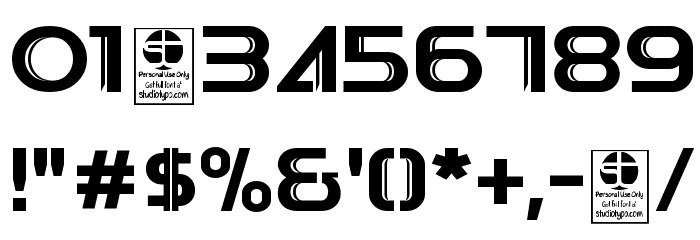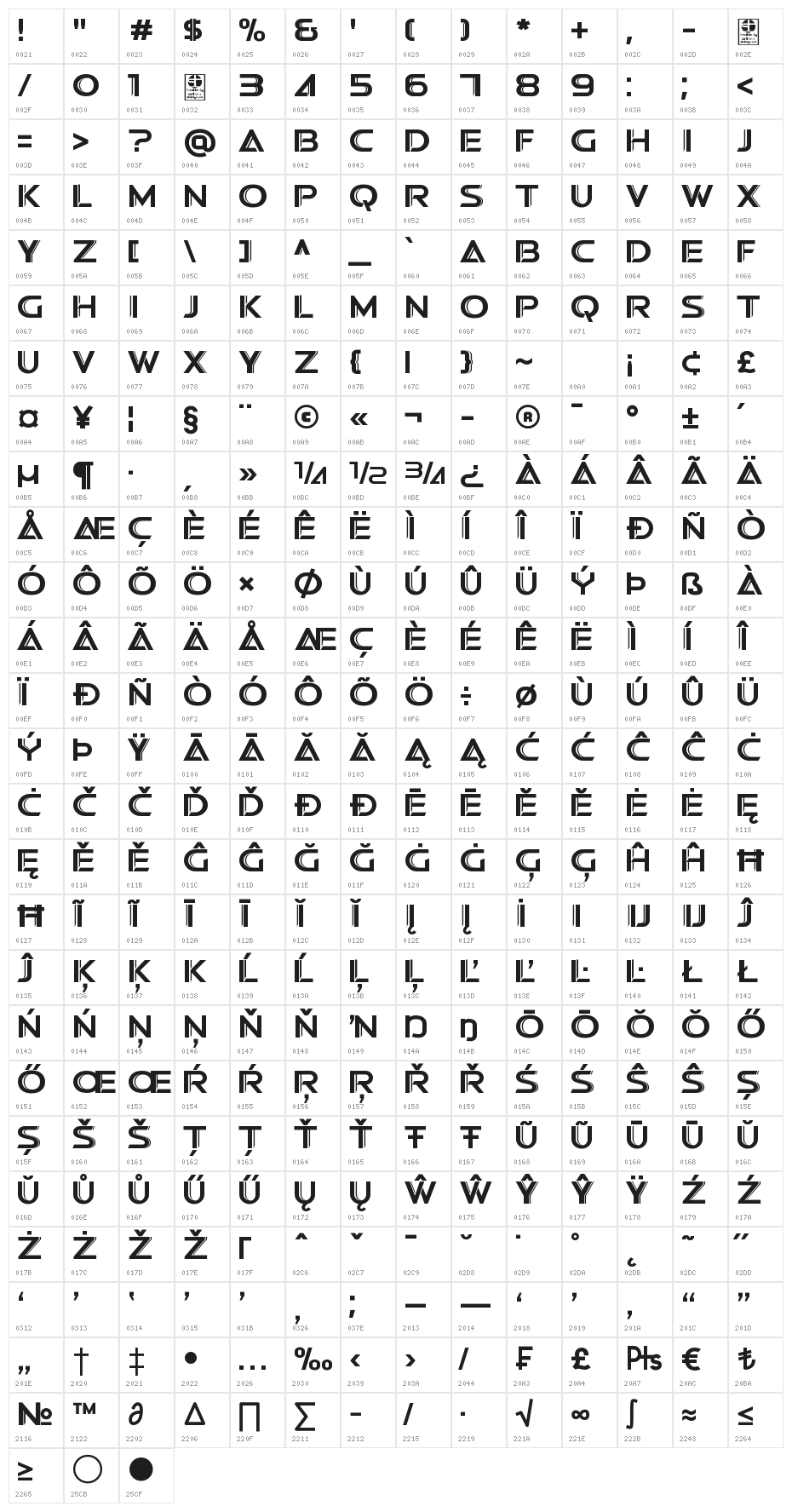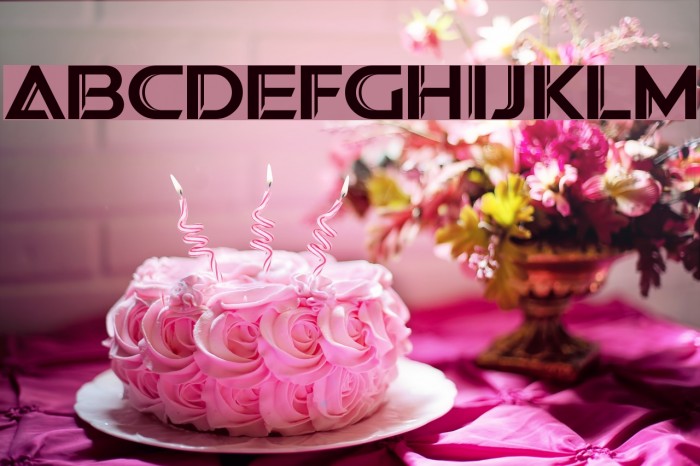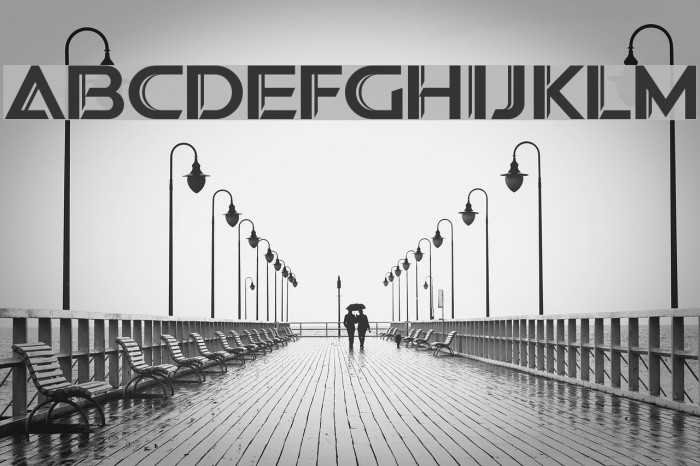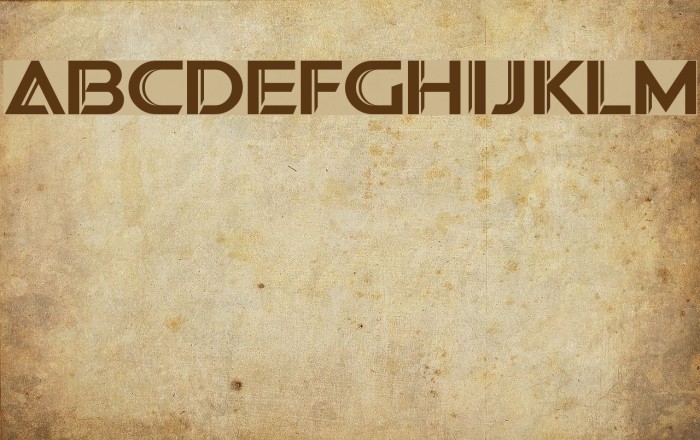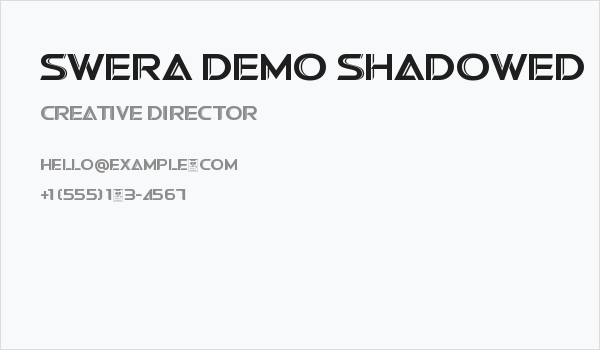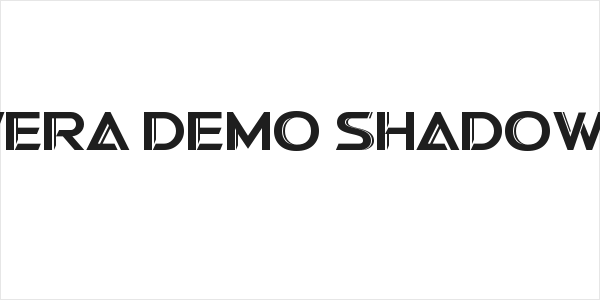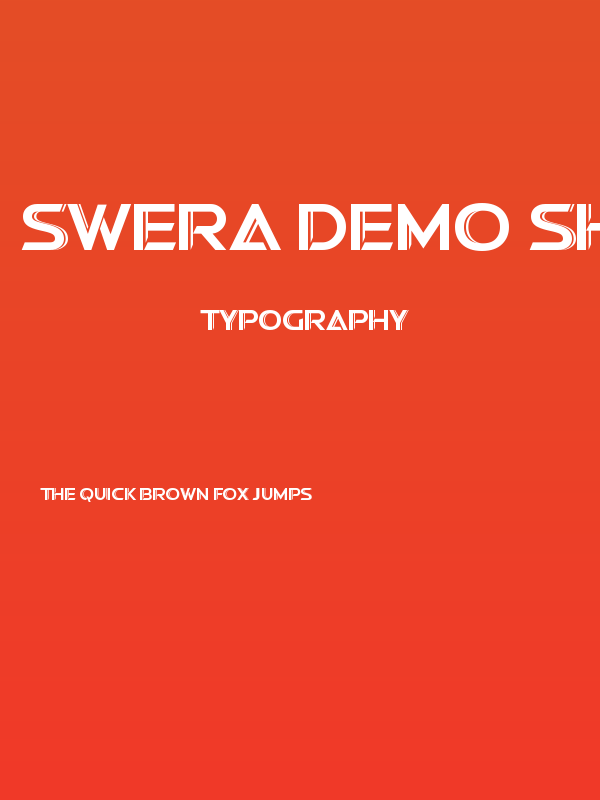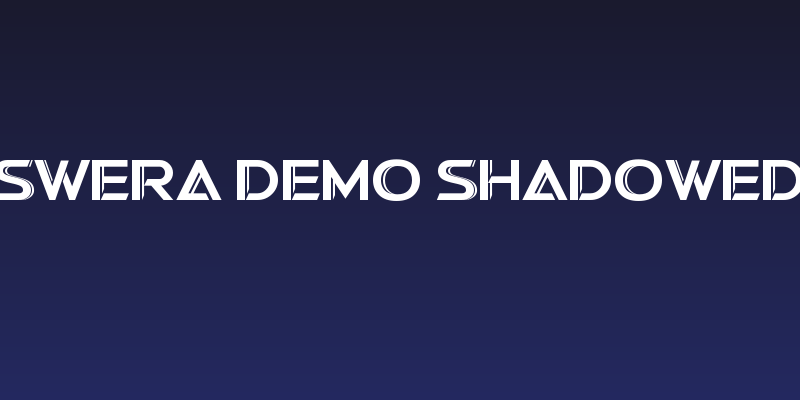
Swera Demo Shadowed Font
Swera Demo Shadowed Description
This font features a bold, geometric design with a distinct shadow effect that adds depth and dimension to each character. The uppercase letters are sharp and angular, creating a modern and futuristic appearance. The lowercase letters maintain the same style, ensuring consistency throughout. Numbers and special characters are designed with the same shadowed effect, making them stand out. The overall look is striking and eye-catching, suitable for projects that require a bold statement.
| Proposed Projects | Ideal for branding, posters, headlines, and any design needing a bold, modern touch. |